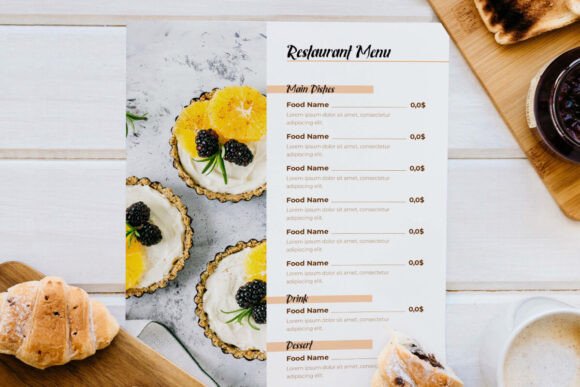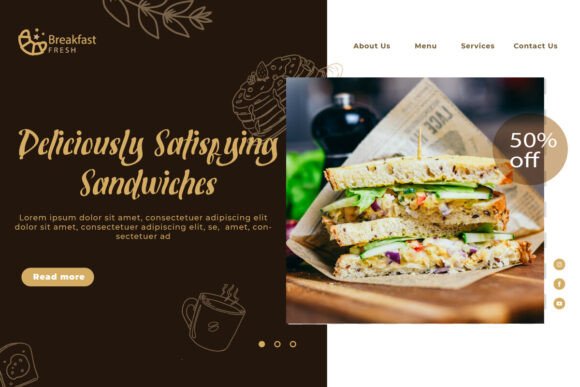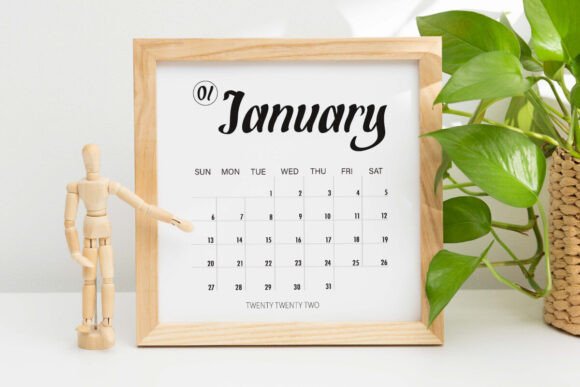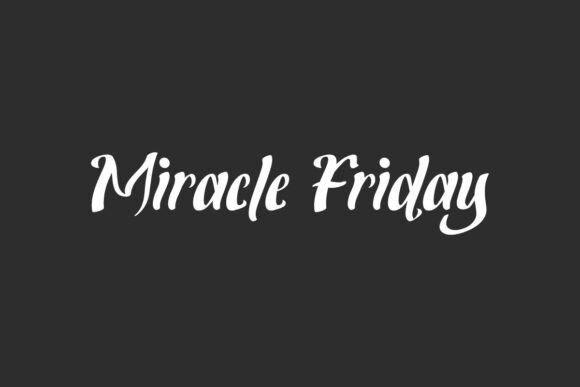
Introduction to Miracle Friday Font
Miracle Friday Font is a unique script display font with horror but fun style.
This font doesn’t have connecting lines between letters, but has a distinctive and beautiful character It will be good for many designs, such as brochure, cover, custom design, gift box, invitation, label, poster, product packaging, quote, screen printing, stationery, website, and more.
Miracle Friday Font offers exceptional quality and versatility, making it a valuable addition to your design toolkit. Whether you’re creating for personal projects or commercial use, Miracle Friday Font delivers professional results.